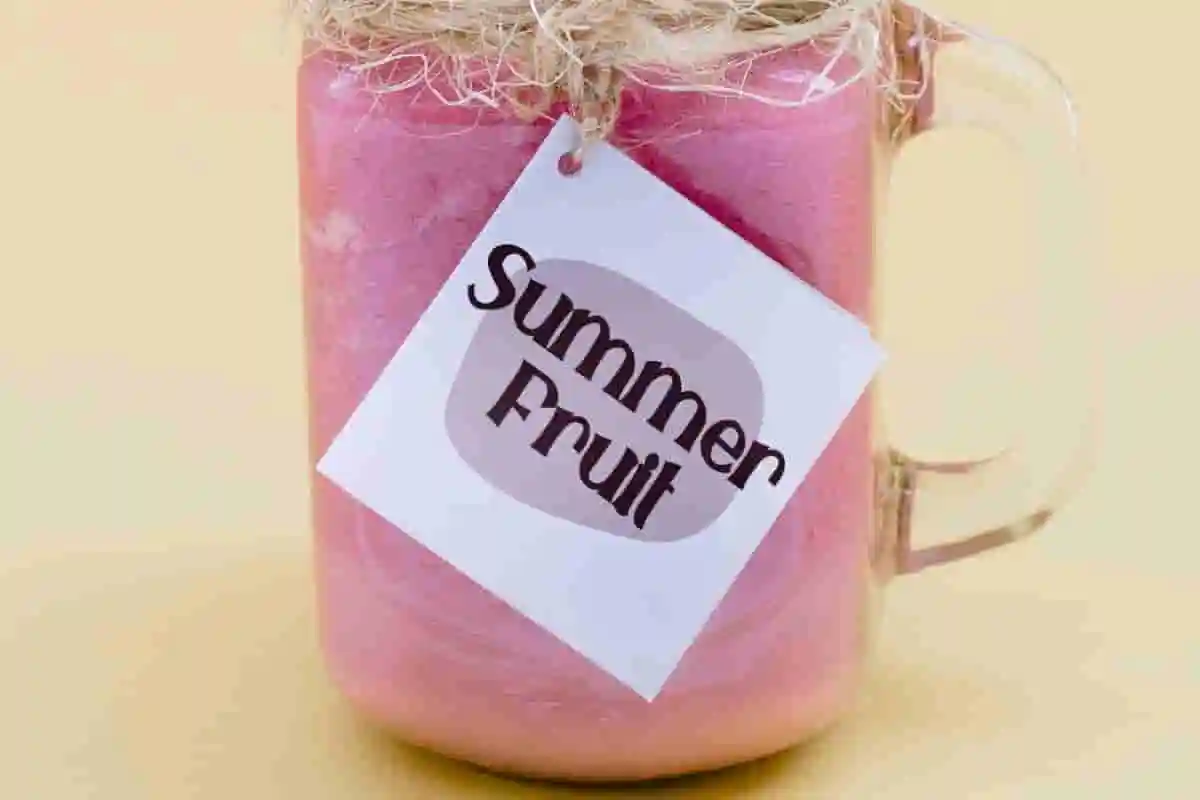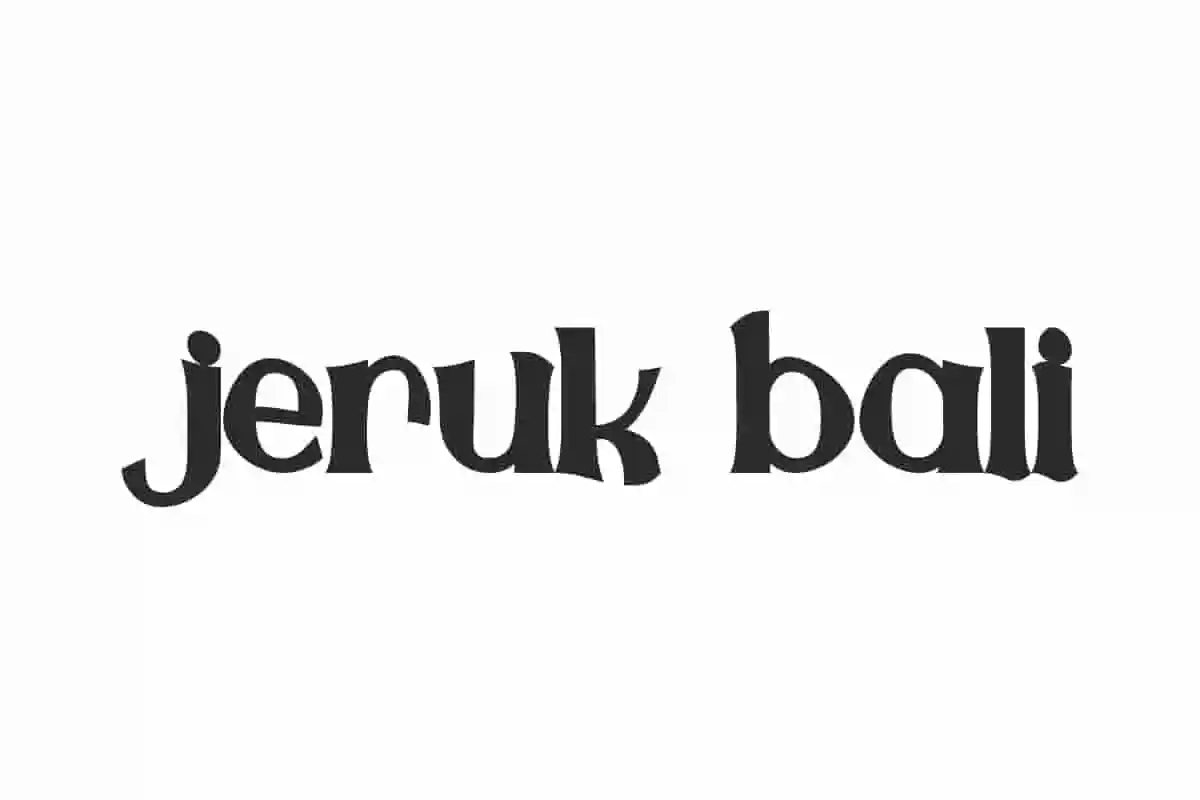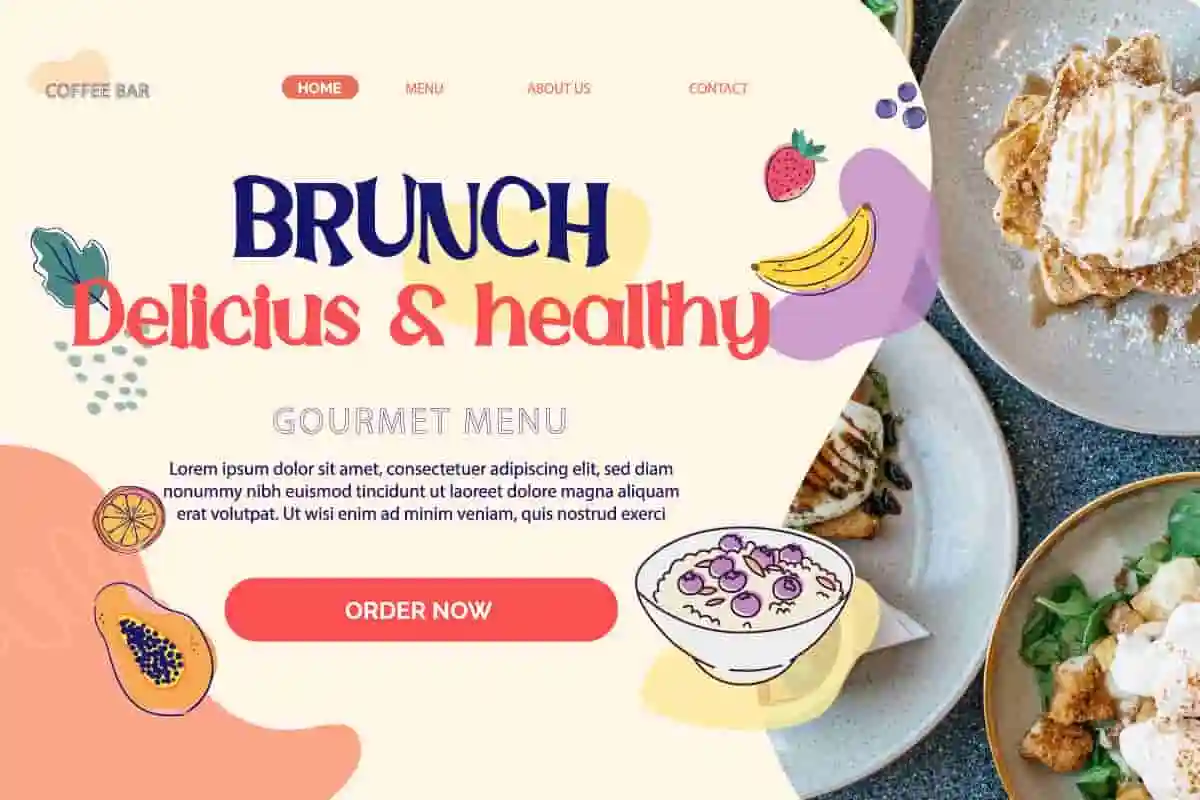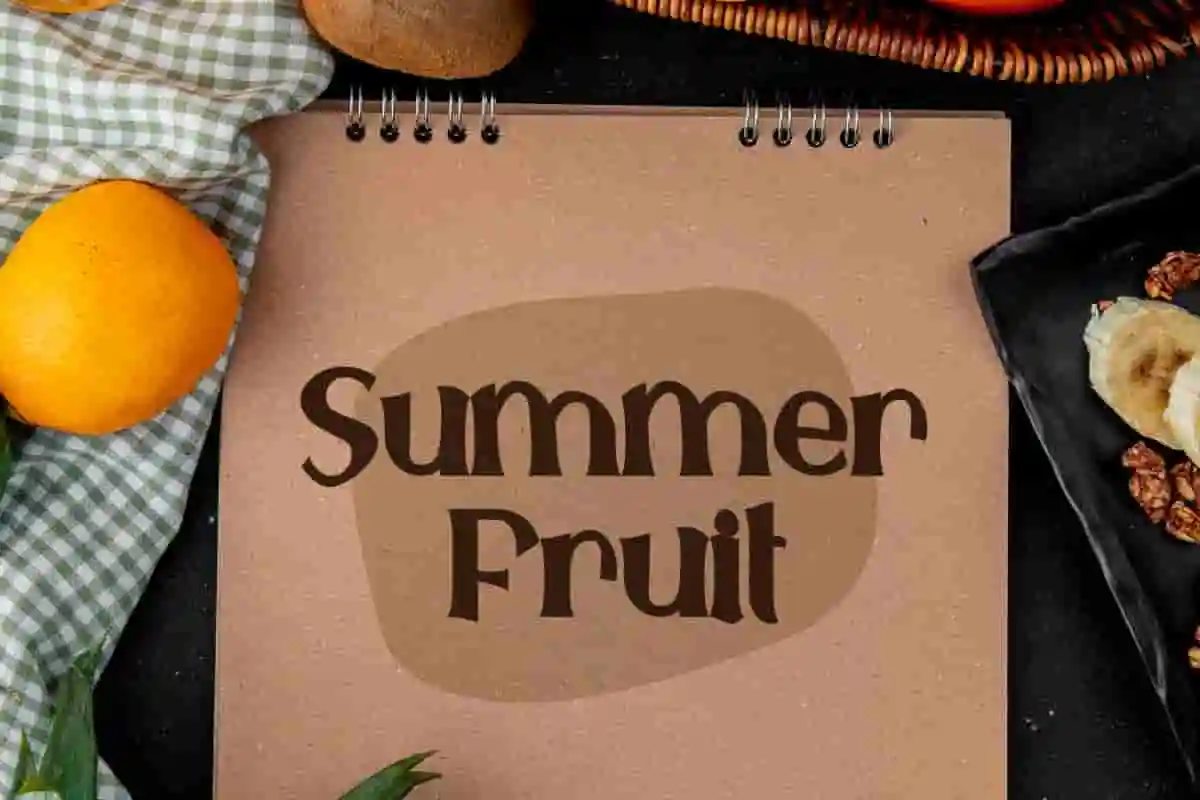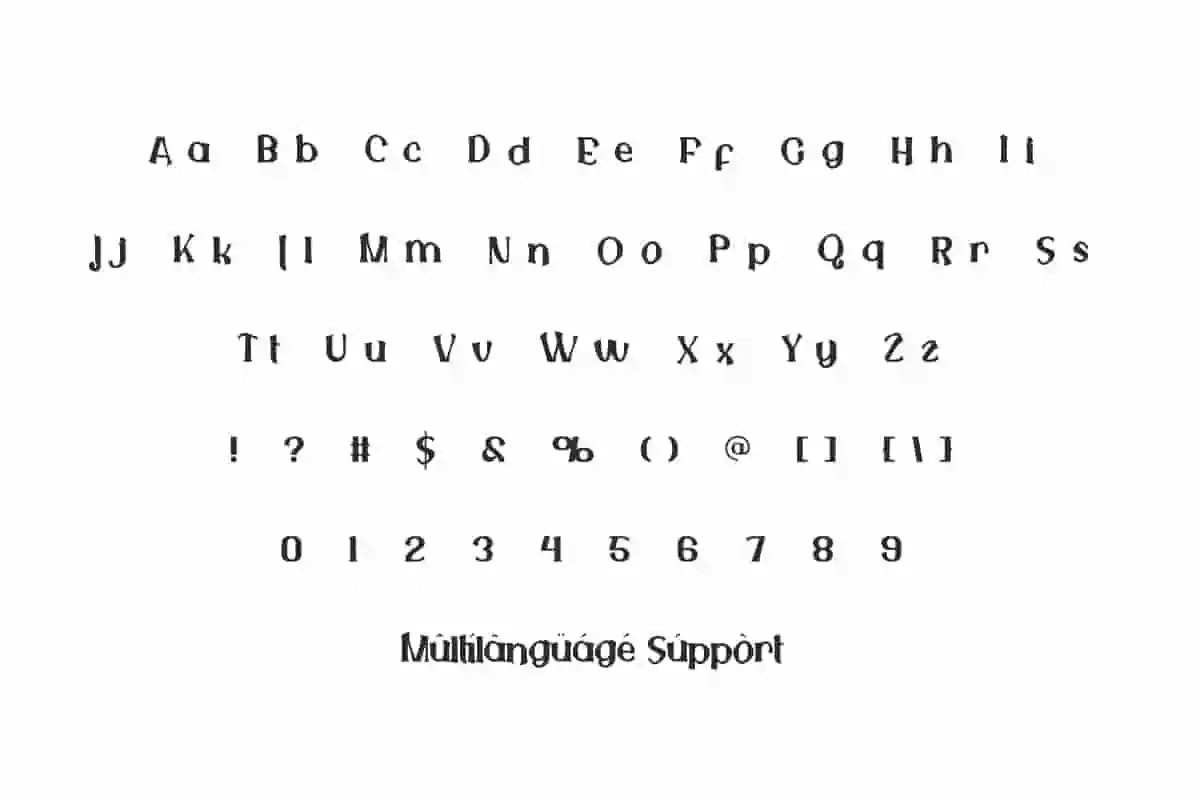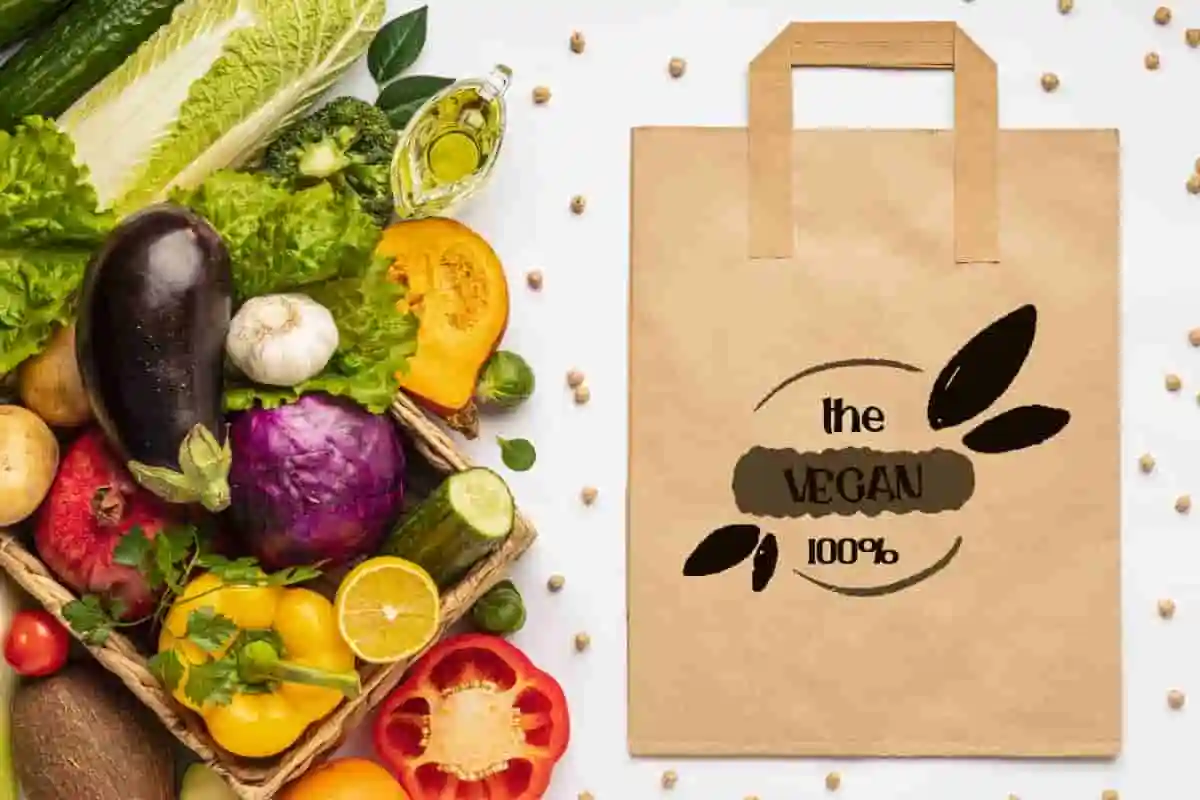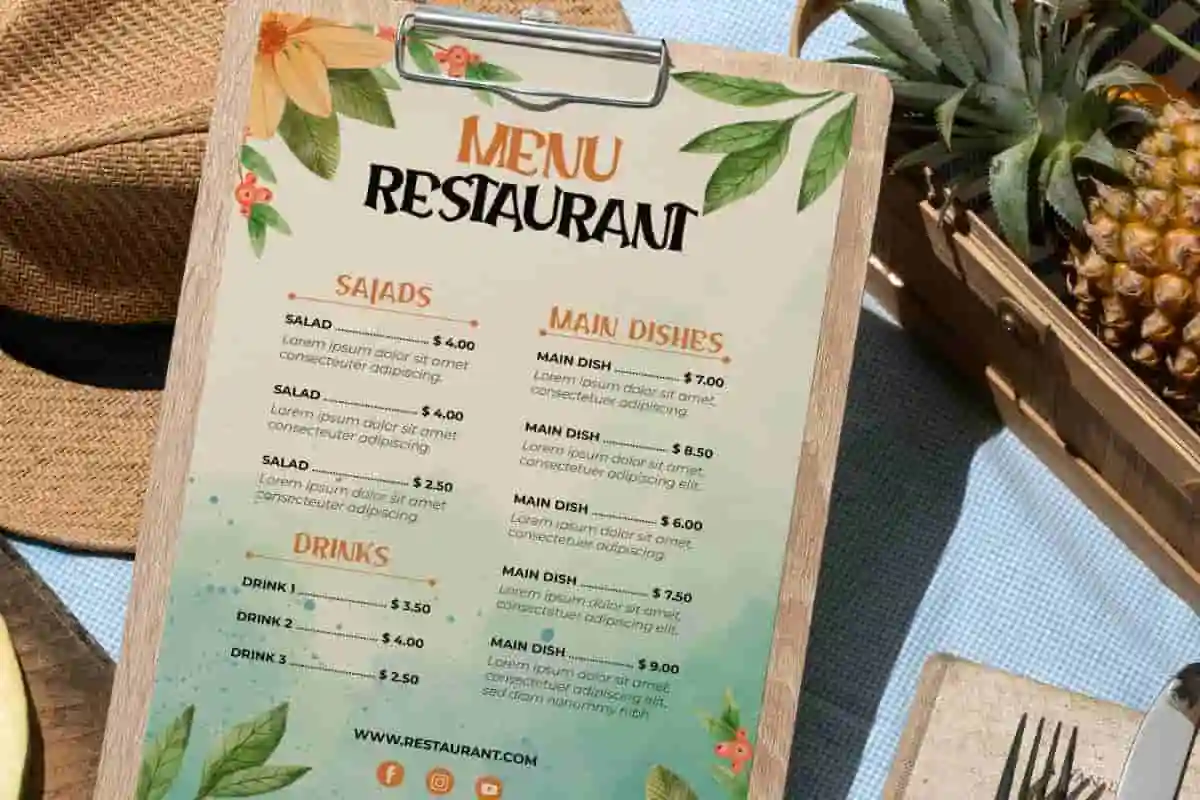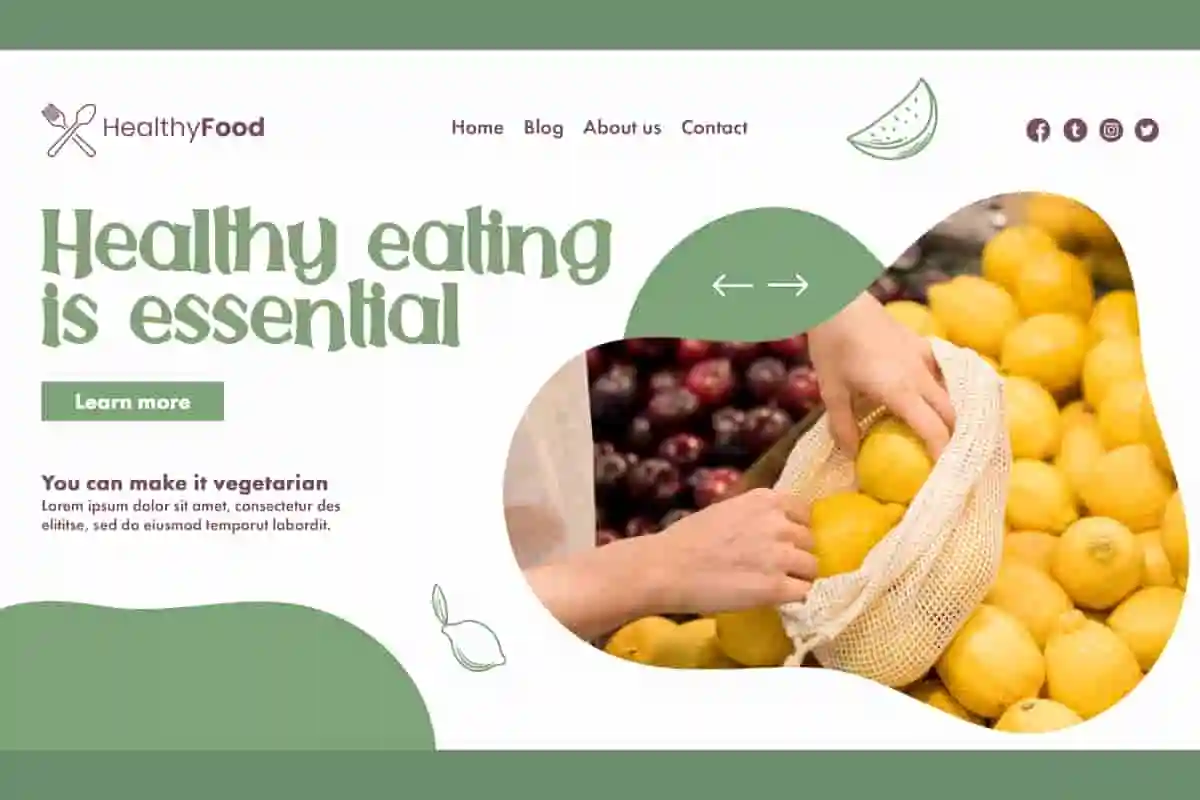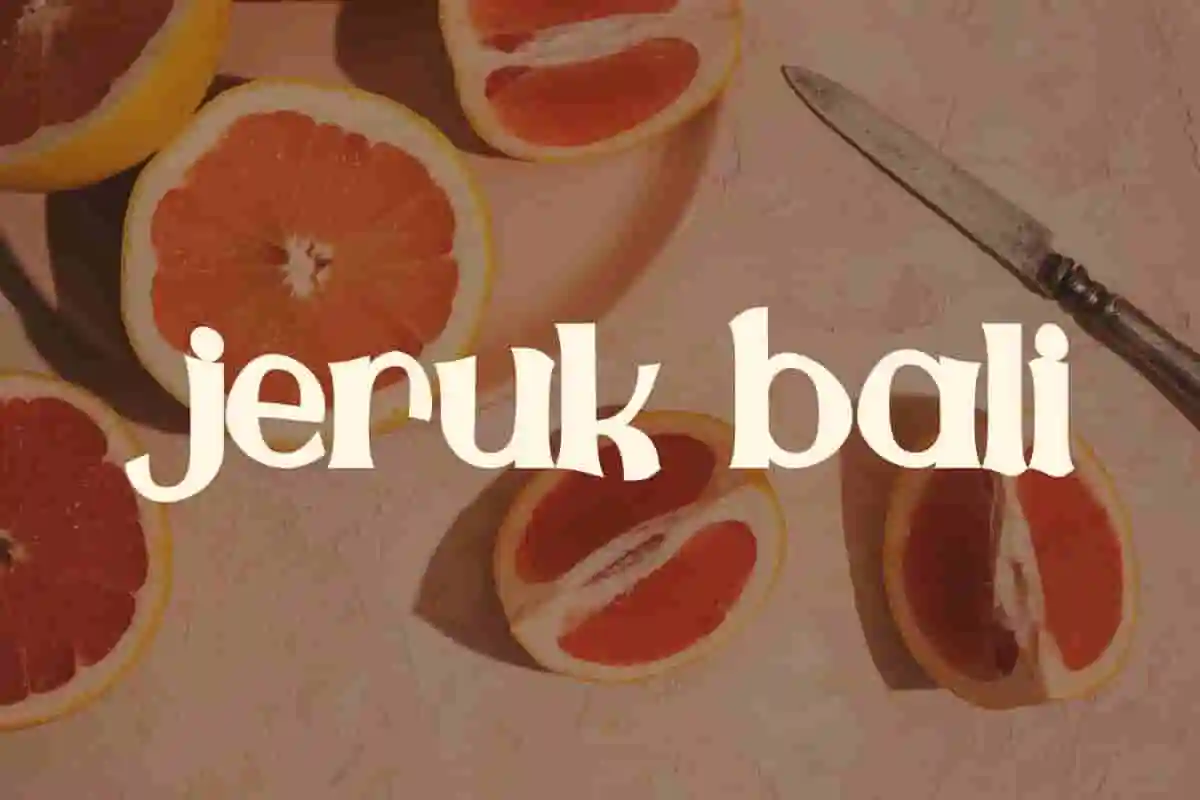
Jeruk Bali Font is a quirky font that is perfectly designed to produce a pleasing organic lettering at all times. This would be adorable for greeting cards, quotes etc.
Jeruk Bali Font is a refreshingly modern display font in a classic letterform that creates a visually appealing aesthetic. Carefully crafted to create a timeless look and exude a calm charm that is perfect for both print and digital applications. Use it to enhance your branding logo, brochures, greeting cards, headings, labels, menu flyer, posters, websites, and so much more!
Jeruk Bali Font will produce a weighty and cohesive look that captivates and inspires. Enhance the overall sophistication of the design with a bolder font style and creatively adapt perfectly to your vision. This font contains a complete set of Basic Characters Uppercase and Lowercase, Numbers, Symbols and Punctuation. Whether used for cafes, food court, fruit juice stand, graphic design, photography, restaurant, summer festival, and more.